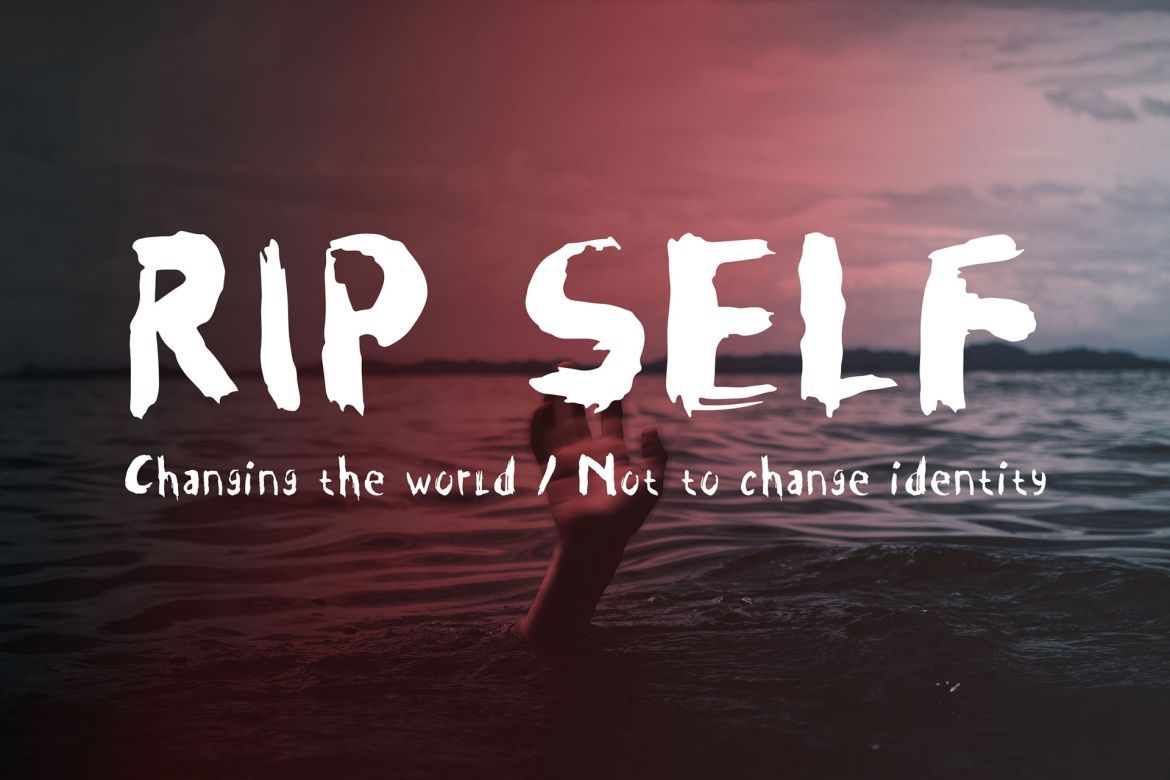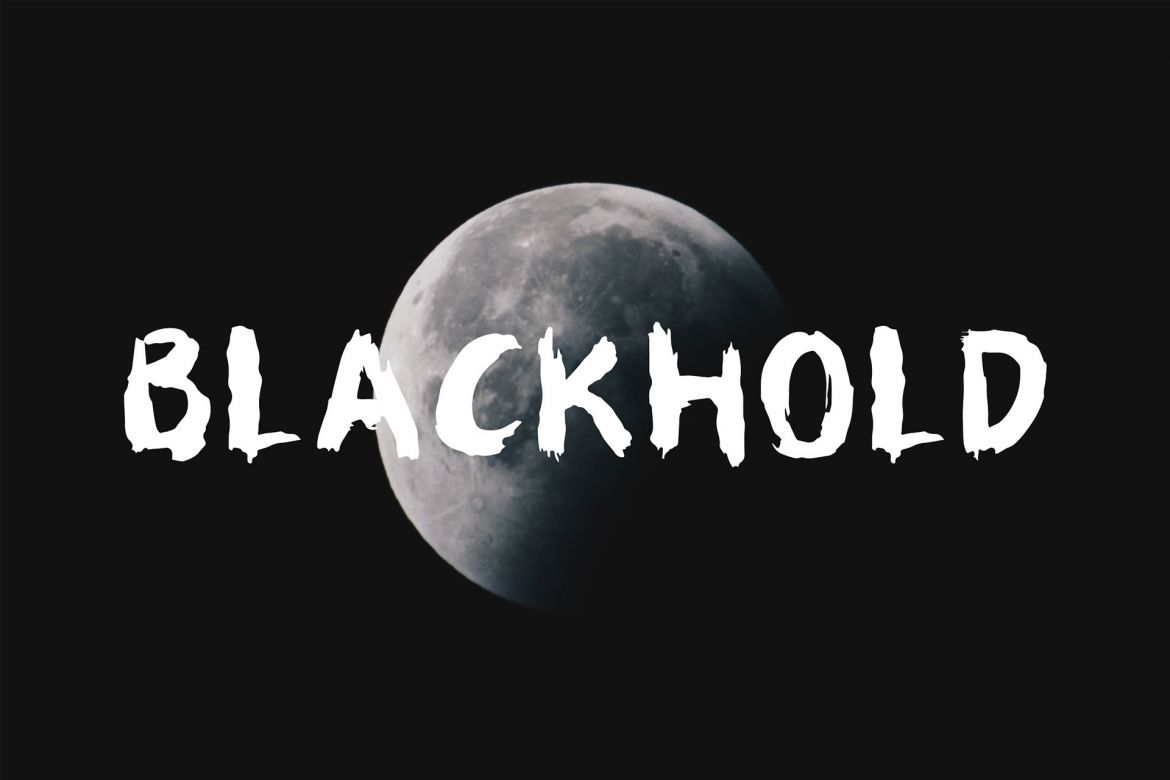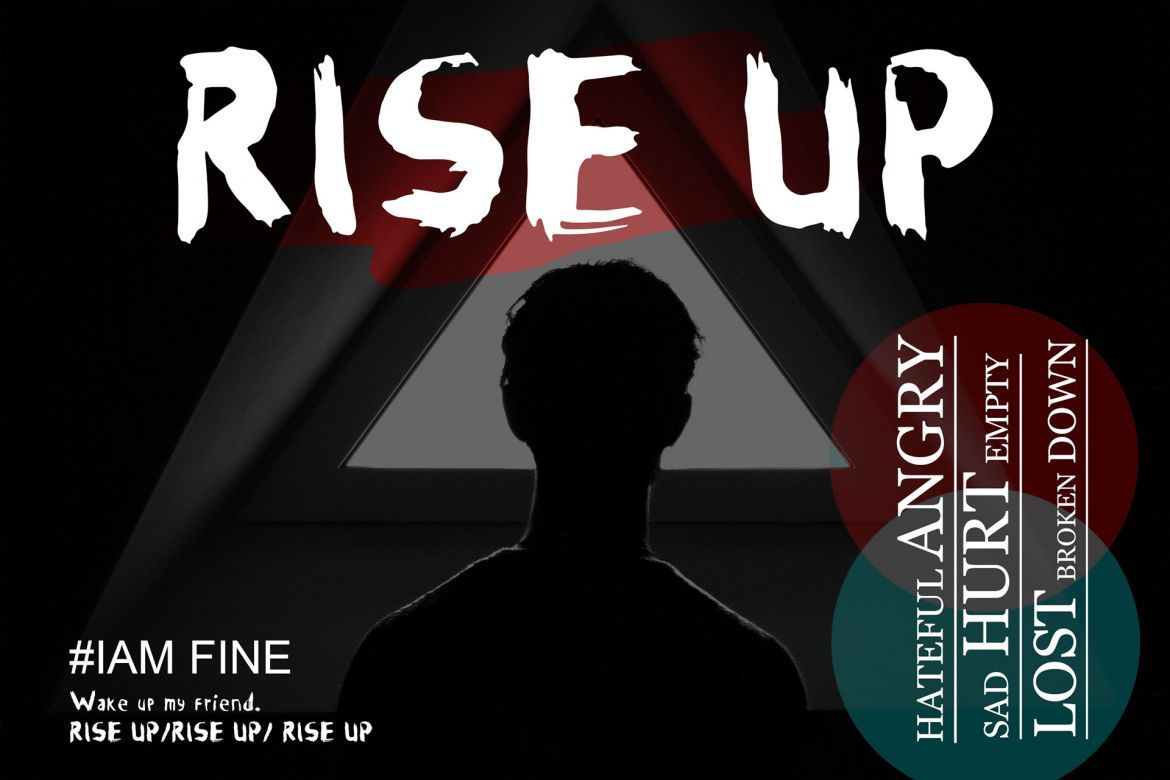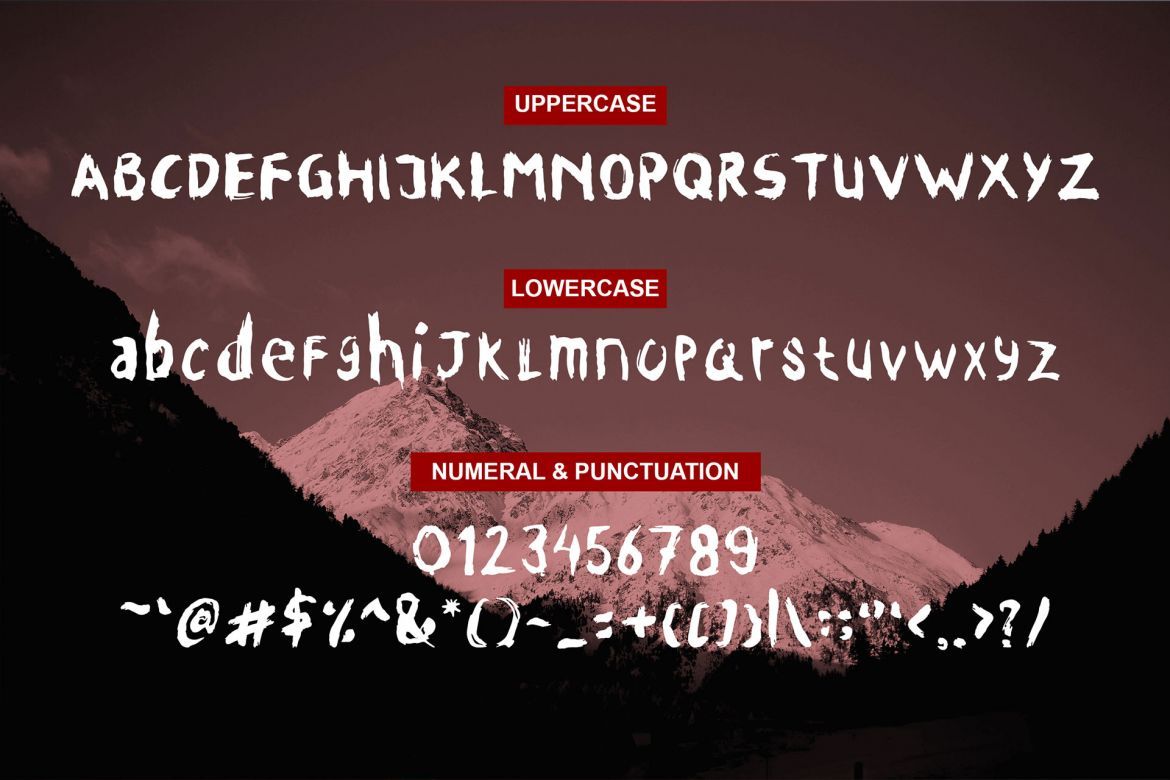
Quickly Charms – Brush Font
Introducing – Quickly Charms is a modern, hand-drawn typeface. This elegant and beautiful font is stylish and versatile so you can use in a plethora of designs in both digital and print applications.
Quickly Charms is a modern, hand-drawn typeface., this font looks elegant, classy, readable, stylish, catchy and easy to use.
Quickly Charms is the best choice for your professional design projects, including signature, watermark on photography, quotes, wedding, fashion, letter, invitation, business card, logo, branding, magazines, social media, advertisements, product designs, and much other design projects.
• the perfect font choice for powerful projects – watermarks, signatures, photography, logos, business cards, quotes, album covers.